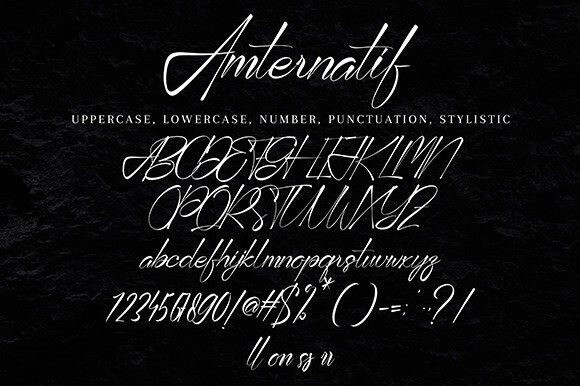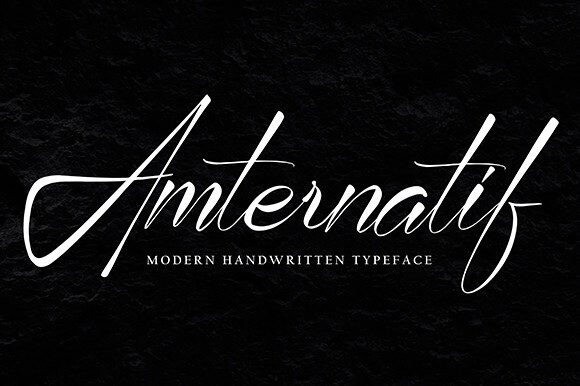
Amternatif Typeface
Amternatif Typeface with new style, this font will perfect for many different project ex: quotes, logo, blog header, poster, banding, letter, invitation, stationery, etc…